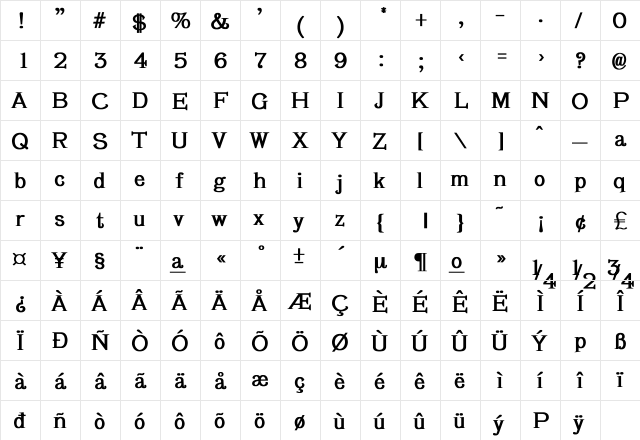
Verena Bold
Verena offers clean, dependable letterforms without strong stylistic allegiance, making it a practical choice for designers who need flexibility. The heavy weight commands attention and anchors typographic hierarchies.